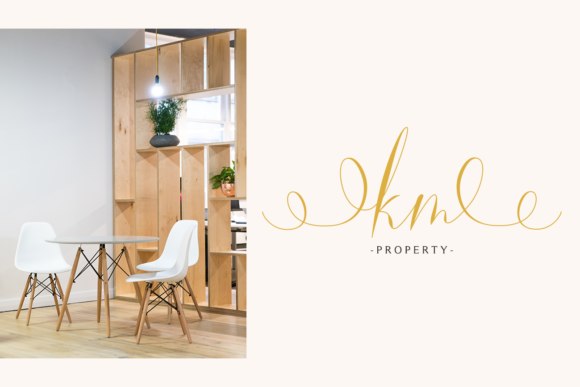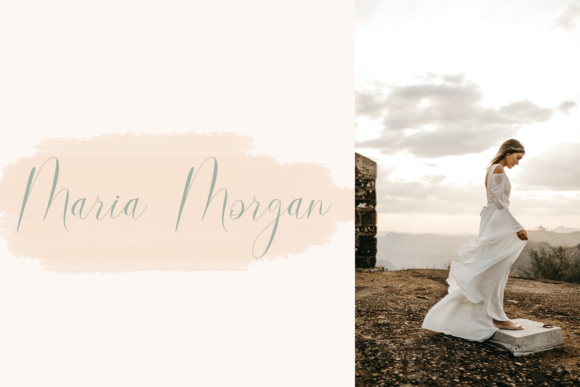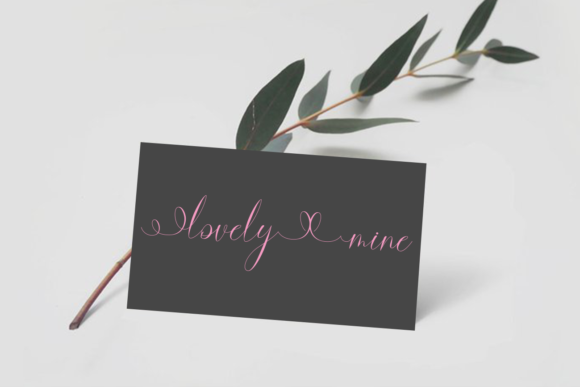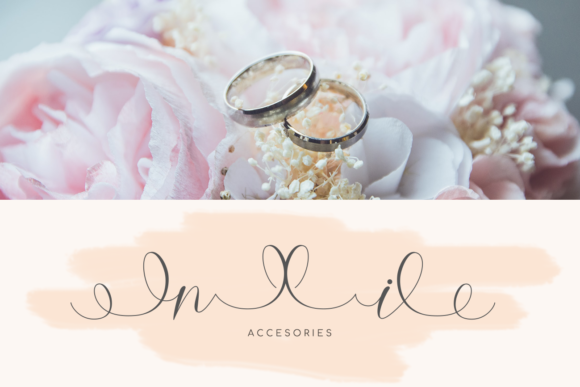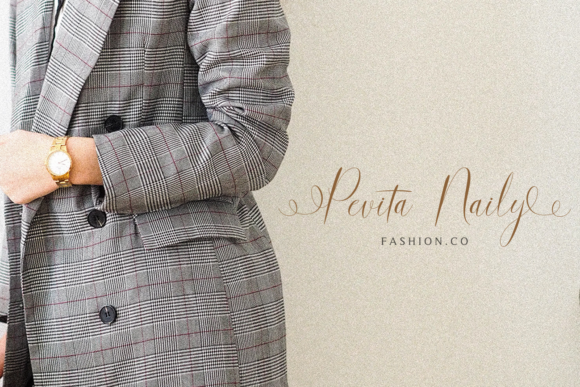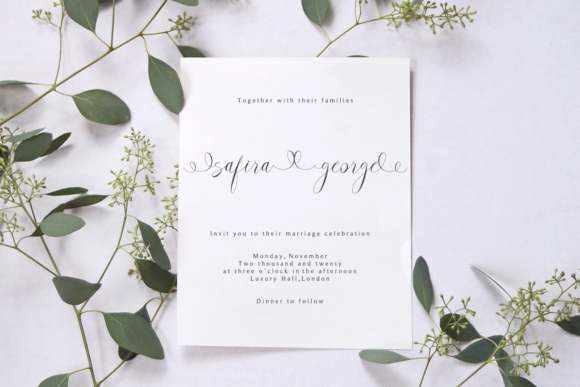
Introduction to Marry Merry Font
As a designer, there’s nothing quite like the thrill of creating something beautiful from scratch. It’s that moment when you’re brainstorming ideas for a wedding invitation or a custom logo, and you stumble upon the perfect font to bring your vision to life. For many of us, that font is Marry Merry Font – an elegant and delicate handwritten script that adds a touch of sophistication to any design.
With its high-quality design and versatility, Marry Merry Font is a valuable resource for any creative project. Whether you’re working on a free download design or a commercial project, this font is sure to impress. Plus, with its transparent background and PUA encoded features, you can easily access all the glyphs and swashes you need to create stunning designs. Whether you’re a seasoned pro or just starting out, Marry Merry Font is a must-have in your design arsenal.
- Unique, hand-drawn style with a touch of elegance, making it perfect for weddings and special occasions
Honest Review: Marry Merry Font
I recently came across the Marry Merry Font, and I’m excited to share my thoughts on this design resource. As a designer, I’m always on the lookout for high-quality fonts to elevate my creative projects.
- ✨ Unique and playful design aesthetic, perfect for adding a touch of whimsy to my creative projects
- ⚠️ Limited character set, which may not be suitable for projects requiring extensive typography
- ⚠️ Some users may find the font’s style too ornate or distracting for certain design contexts
Overall, I’m impressed with the Marry Merry Font’s potential to add a creative spark to my design projects. While it may have some limitations, its unique design and high-quality files make it a valuable addition to my design resource library.
The Marry Merry Font is perfect for wedding invitations, birthday party invitations, and other creative projects where a beautiful, high-quality font is needed.
Comparison to Marry Merry Font: Great Vibes Font has a more subtle and elegant feel compared to Marry Merry Font, which is more playful and whimsical. Great Vibes Font is a better choice for designers who want to convey a sense of refinement and sophistication.